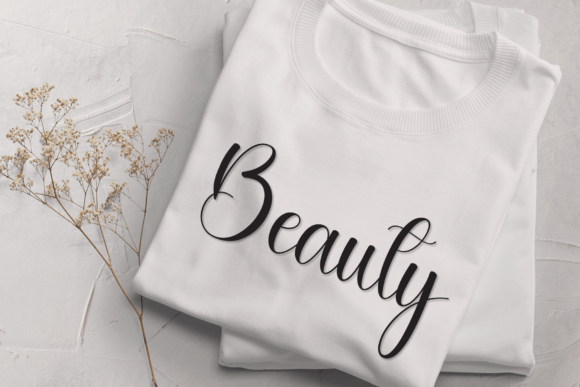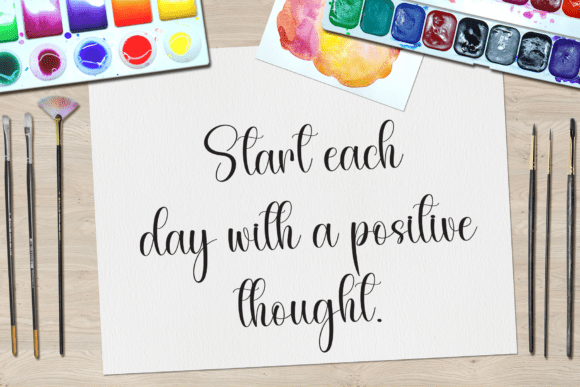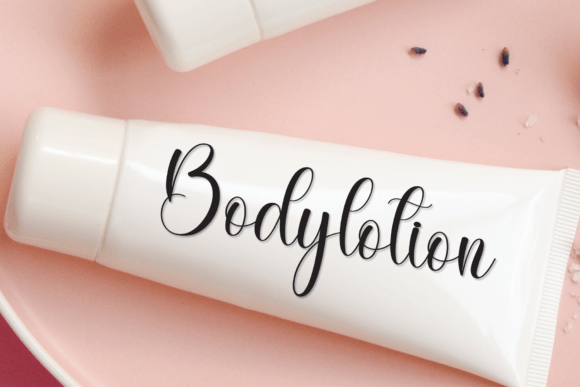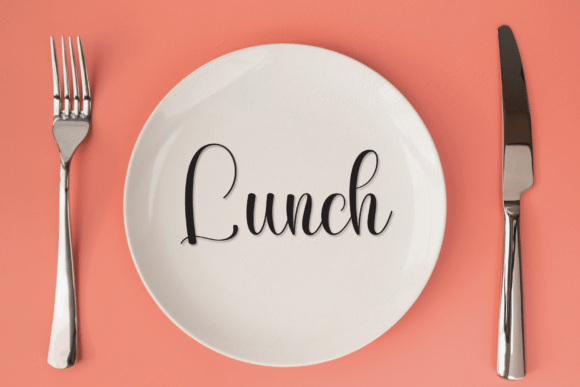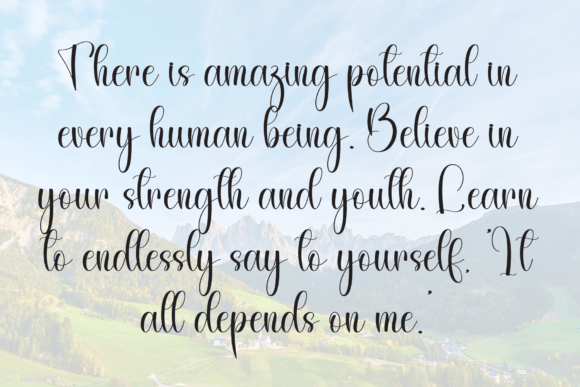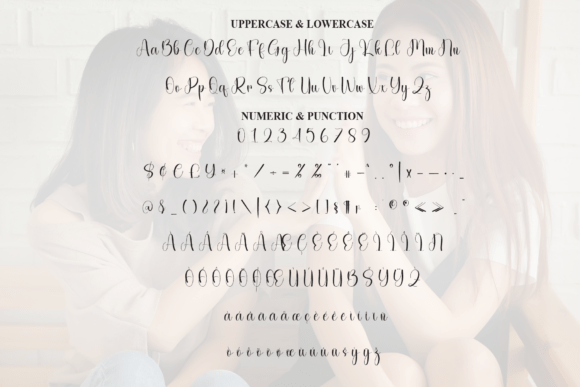
Introducing Bestie Font: Elevate Your Designs with Elegance and Sophistication
In the world of typography, a font can make or break a design. For designers and crafters seeking to add a touch of luxury and modernity to their projects, the Bestie Font is an exceptional choice. This stylish script font is designed to exude elegance and contemporary charm, making it perfect for a wide range of applications, from logos and invitations to packaging and social media graphics.
The Beauty of Hand-Drawn Calligraphy with a Modern Twist
Bestie Font is a masterful blend of traditional calligraphy and modern design. Its graceful strokes, fluid curves, and carefully crafted letterforms capture the essence of hand-drawn calligraphy, while its sleek and polished details give it a distinctly contemporary feel. This unique fusion of styles makes Bestie Font an ideal choice for designers looking to add a refined and sophisticated touch to their work.
Key Features of Bestie Font
- Elegant and Sophisticated: Bestie Font boasts a luxurious and refined aesthetic, perfect for high-end designs and branding projects.
- Versatile: With its natural flow and polished details, this font is suitable for a wide range of applications, from digital designs to print materials.
- Modern Twist: Bestie Font brings a fresh and contemporary spin to traditional calligraphy, making it perfect for designers seeking to create unique and eye-catching designs.
- Easy to Read: Despite its elegant and cursive nature, Bestie Font remains highly legible, ensuring that your message is conveyed clearly and effectively.
Ideal Applications for Bestie Font
Bestie Font’s versatility and visual appeal make it an excellent choice for various design projects, including:
- Logos and Branding: Create a lasting impression with a custom logo that exudes elegance and sophistication.
- Invitations and Stationery: Add a touch of luxury to your wedding invitations, event flyers, and business stationery.
- Packaging: Elevate your product packaging with a font that conveys refinement and high-end quality.
- Social Media Graphics: Stand out on social media with eye-catching graphics that showcase your brand’s personality and style.
Tips for Using Bestie Font Effectively
To get the most out of Bestie Font, consider the following tips:
- Pair with Neutral Backgrounds: Allow Bestie Font to take center stage by pairing it with neutral backgrounds that won’t compete for attention.
- Experiment with Colors: Try pairing Bestie Font with different colors to create unique and eye-catching combinations.
- Use for Headlines and Titles: Bestie Font is perfect for headlines and titles, where its elegance and sophistication can shine.
- Mix with Other Fonts: Combine Bestie Font with other fonts to create visually appealing and dynamic designs.
Bestie Font is an exceptional choice for designers and crafters seeking to add a touch of elegance and sophistication to their projects. With its unique blend of traditional calligraphy and modern design, this stylish script font is sure to elevate your designs and make them stand out. Whether you’re working on a logo, invitation, packaging, or social media graphic, Bestie Font delivers both versatility and visual appeal, making it an invaluable addition to your typography toolkit.